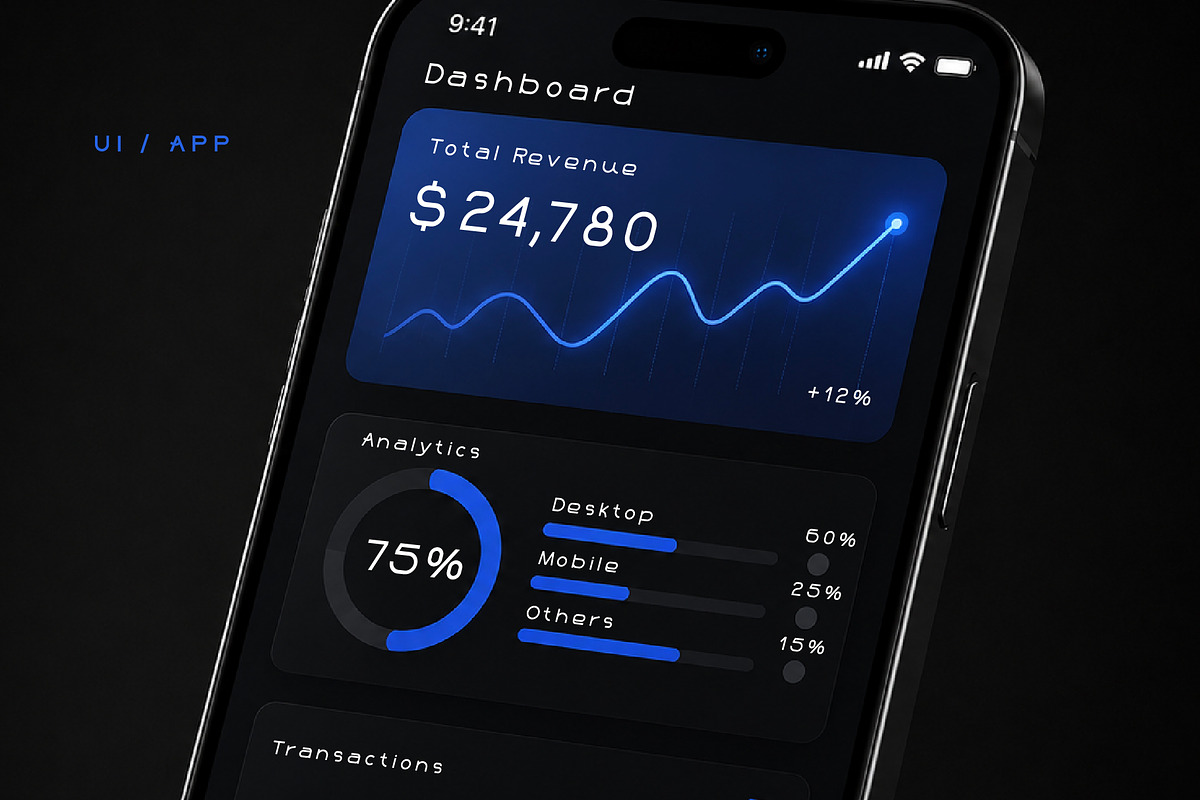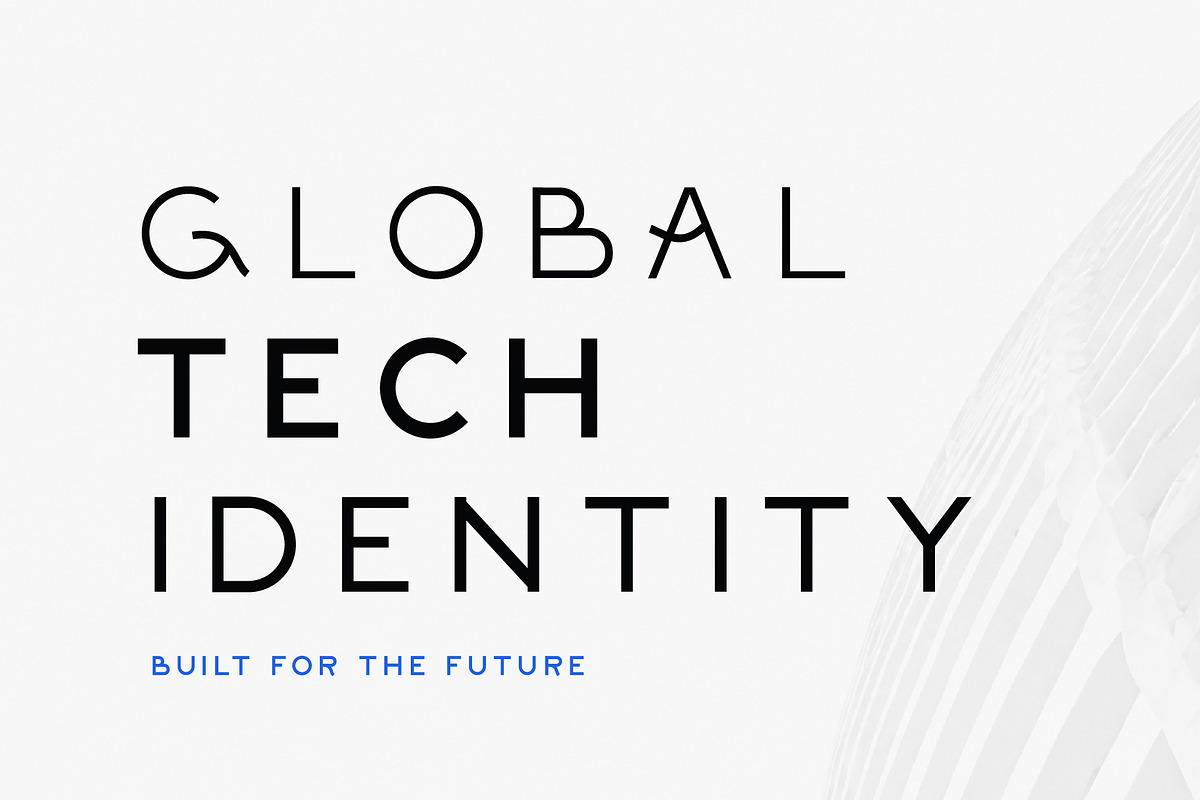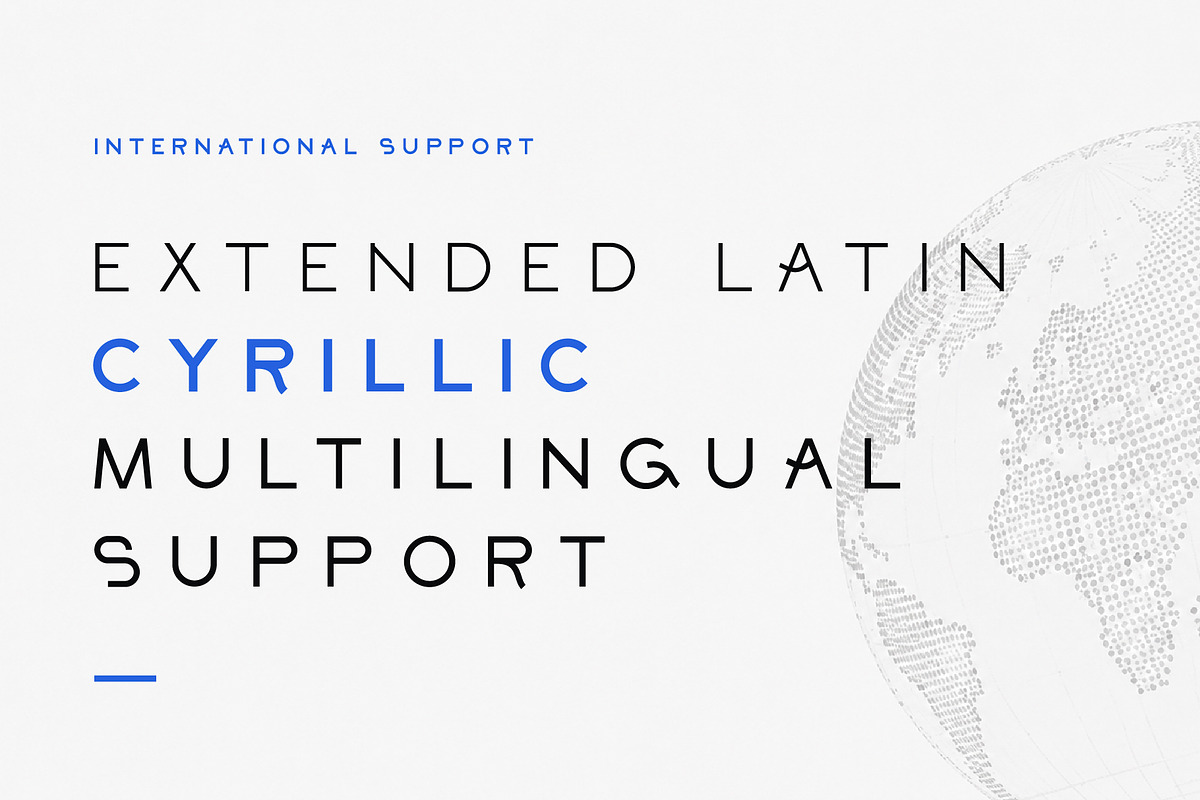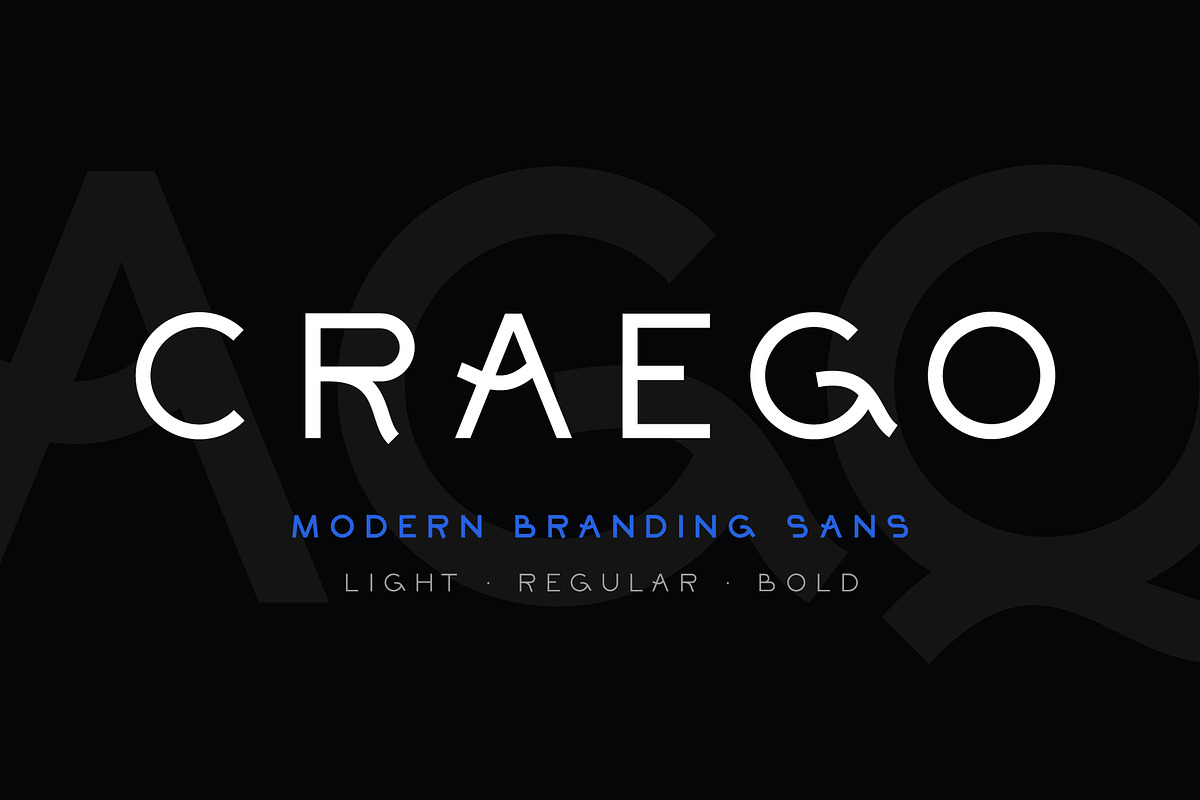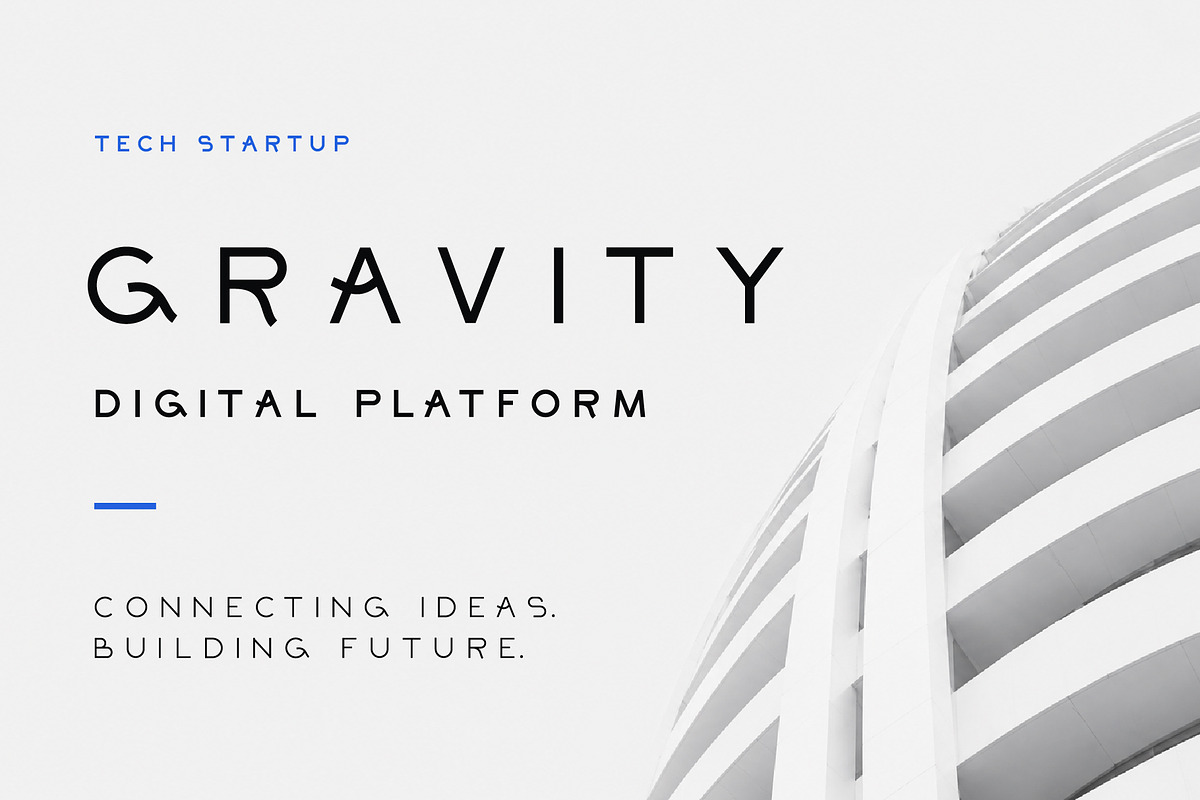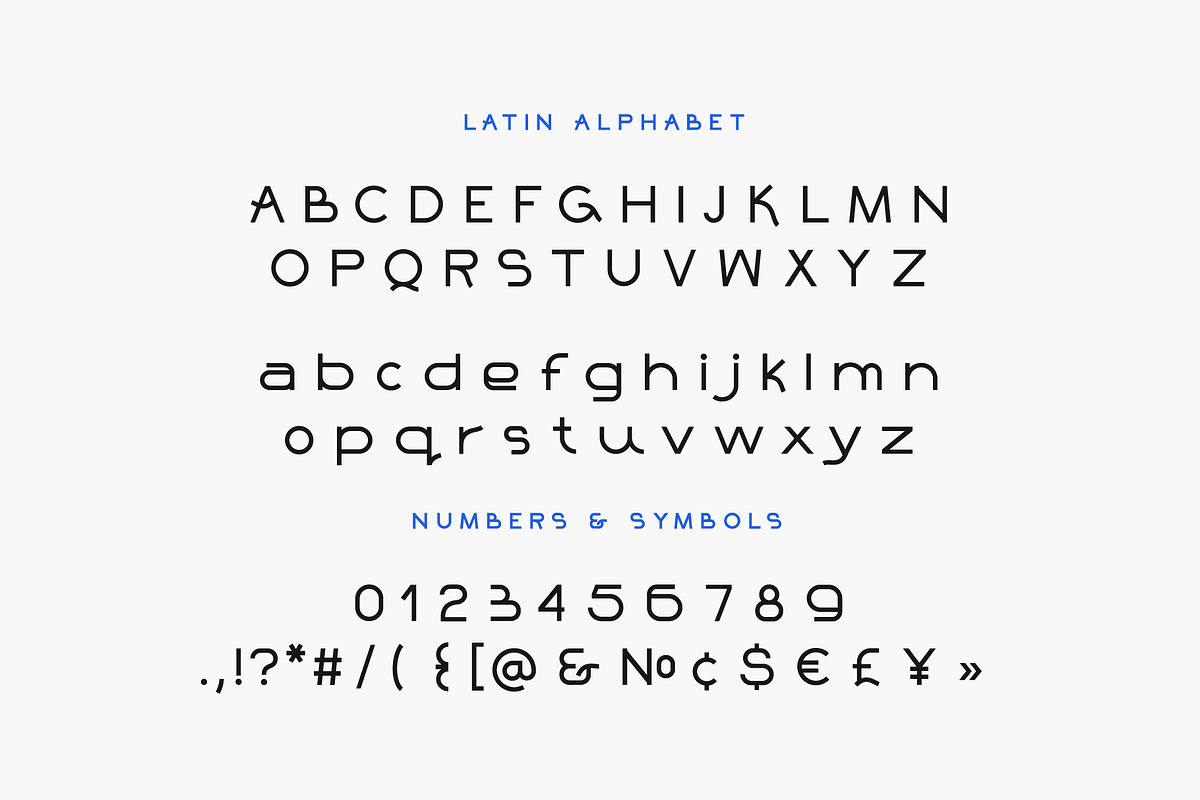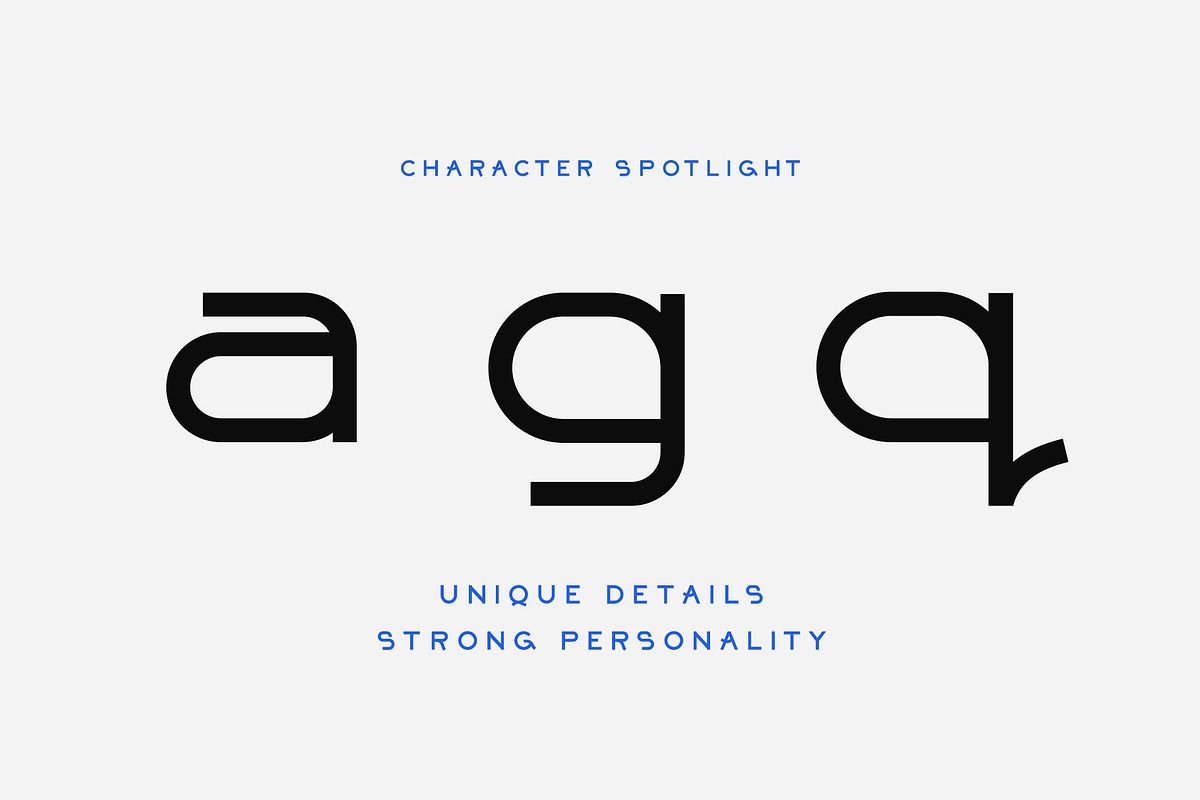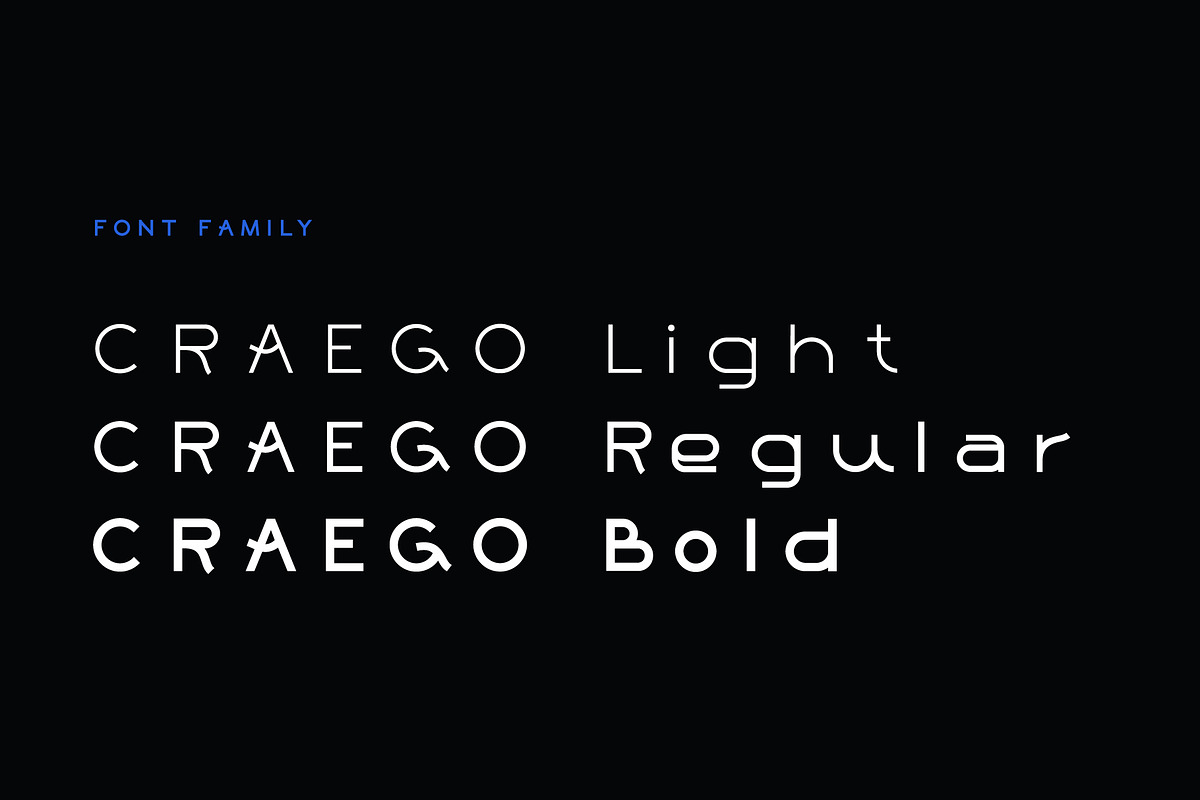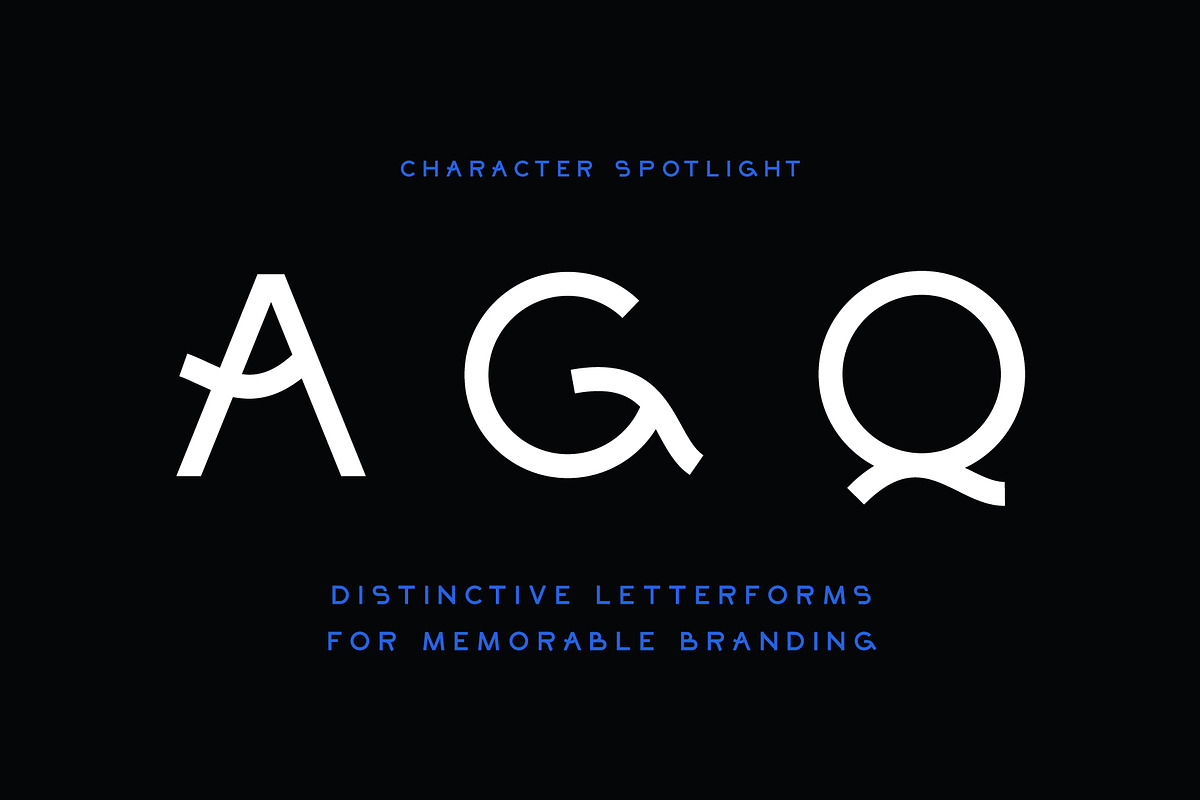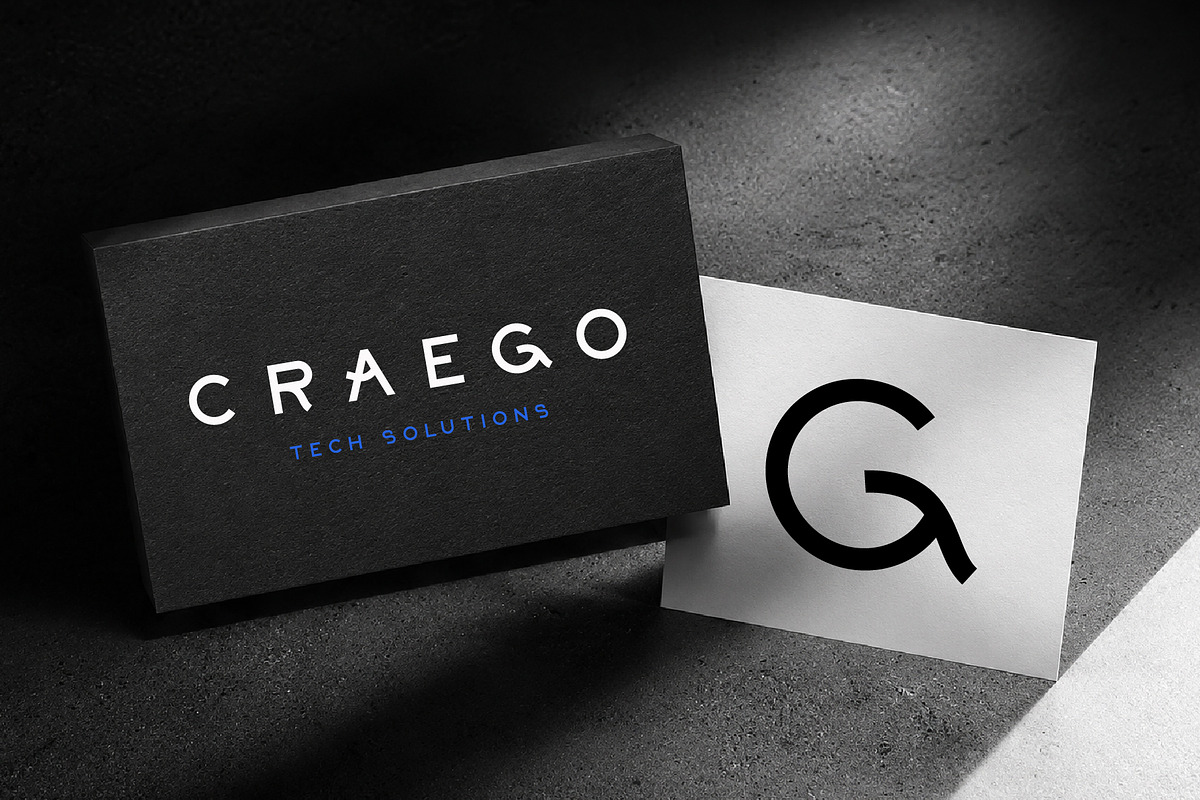
Craego – Modern Branding Sans
Craego is a clean and contemporary branding sans serif designed for modern identities, technology companies, startups, digital products, and forward-thinking brands.
Built with distinctive letterforms and refined geometric construction, Craego balances professionalism with personality. Unique characters such as A, G, Q, a, g, and q create a memorable visual identity while maintaining excellent readability across branding, packaging, web design, presentations, and user interfaces.
Whether you're building a tech startup, creating a modern logo system, designing a SaaS platform, or developing a bold visual identity, Craego provides the flexibility and character needed for standout brand communication.
Light, Regular & Bold styles
Uppercase & lowercase letters
Extended Latin support
Cyrillic support
Currency symbols
Branding & visual identity
Tech startups
SaaS products
Mobile applications
UI / UX design
Editorial layouts
Packaging design
Logo design
Corporate communication
Create strong, modern, and memorable brands with Craego.